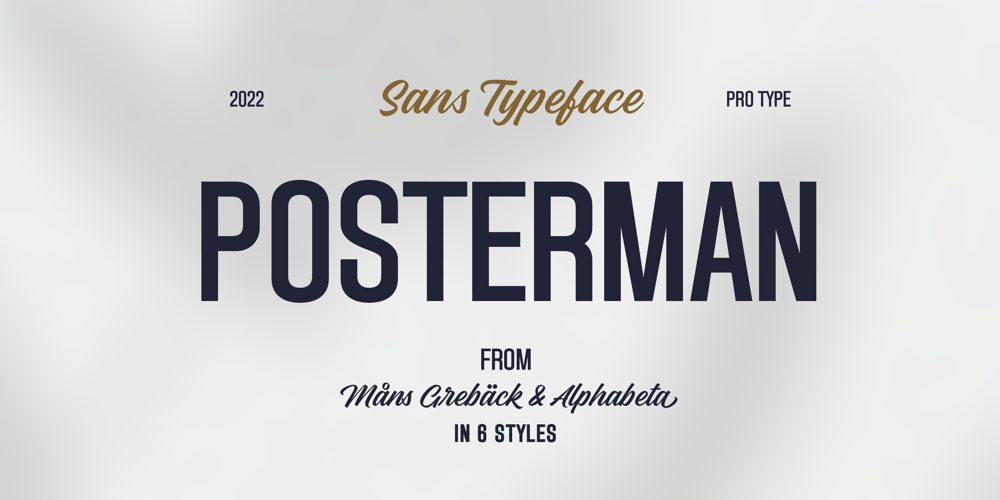
Posterman Font Family was designed by Måns Grebäck and published by Mans Greback. Posterman contains 6 styles and family package options. Posterman is a cool sans-serif typeface. With tall letterforms in a grotesque appearance, this legible typography is a lettering for neo-classic headline or clean logotype.The Posterman font family consists of Regular, Bold and Black, and each weight as Italic, totalling in six styles.The font is built with advanced OpenType functionality and has a guaranteed top-notch quality, containing stylistic and contextual alternates, ligatures and more features; all to give you full control and customizability. It has extensive lingual support, covering all Latin-based languages, from Northern Europe to South Africa, from America to South-East Asia. It contains all characters and symbols you’ll ever need, including all punctuation and numbers.